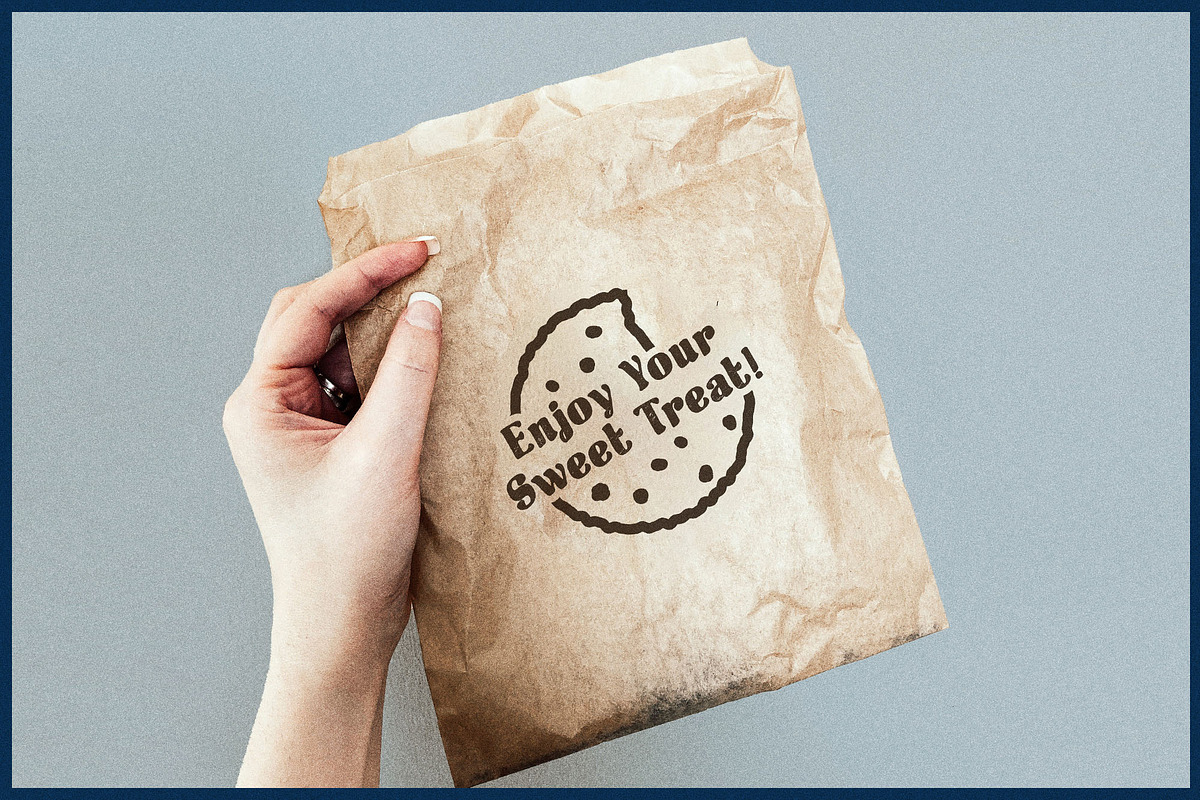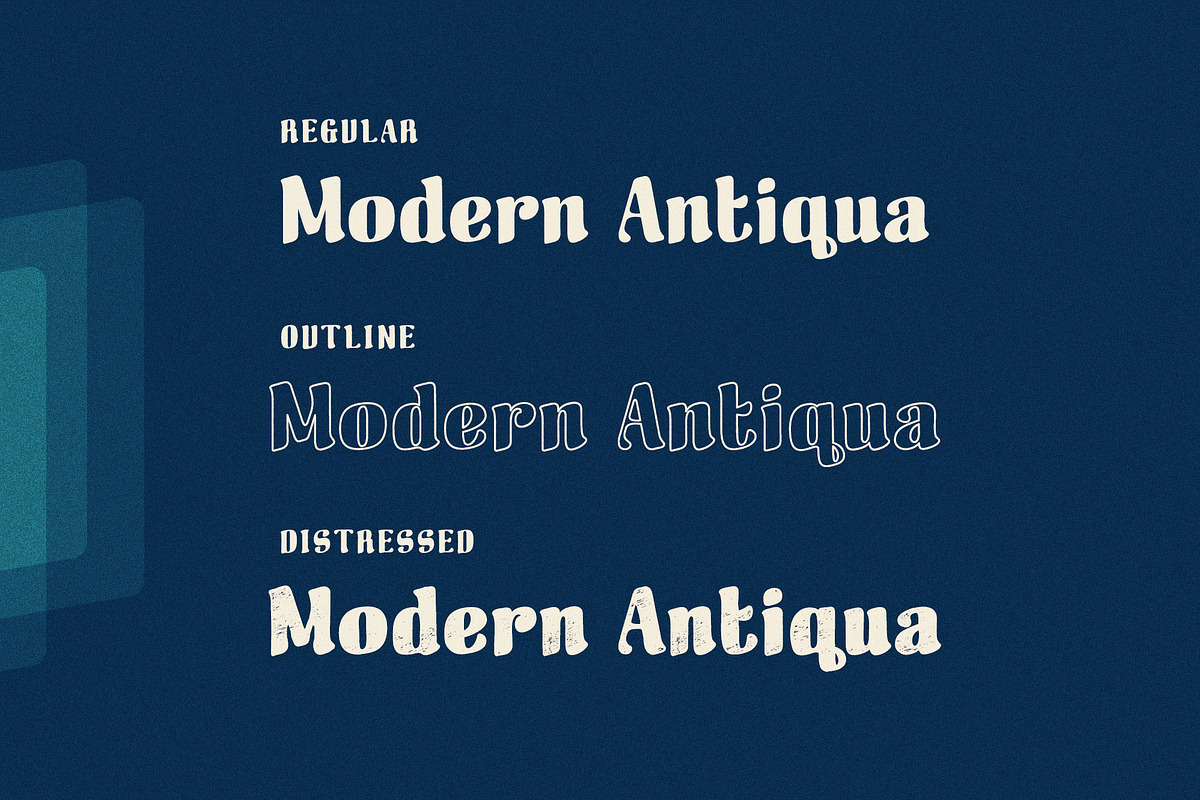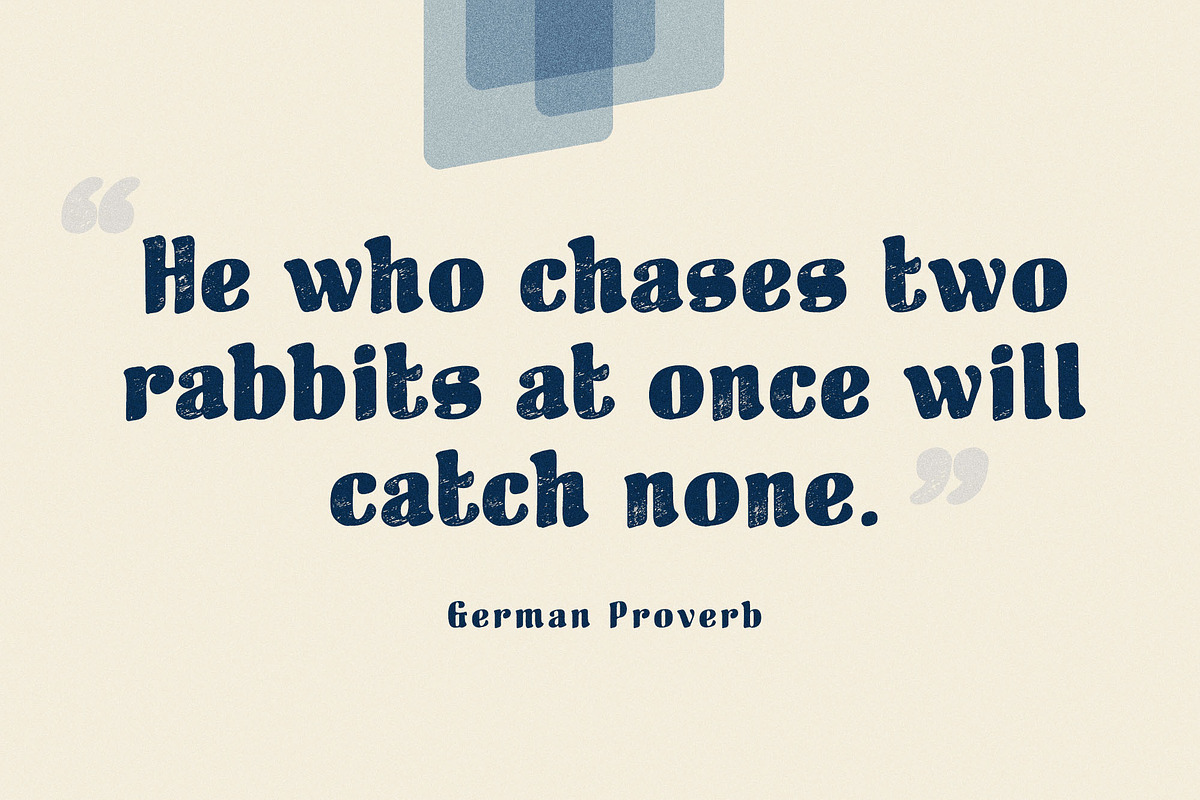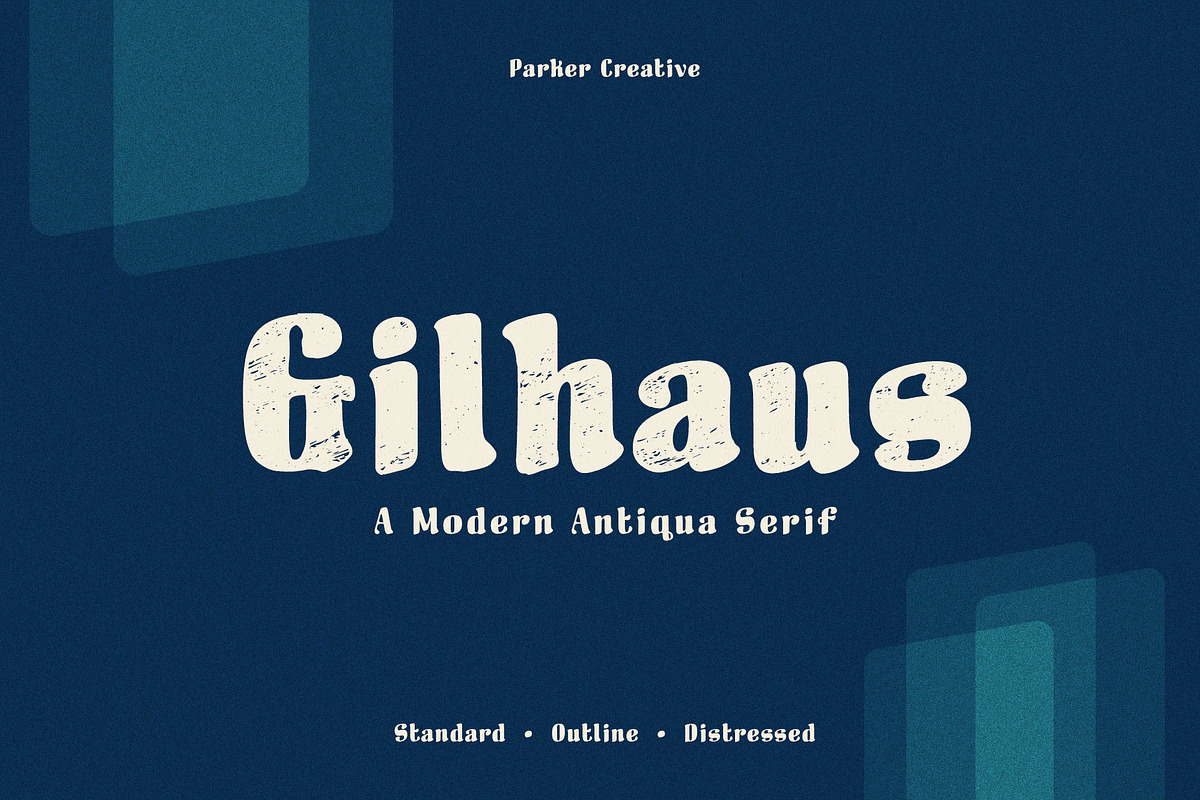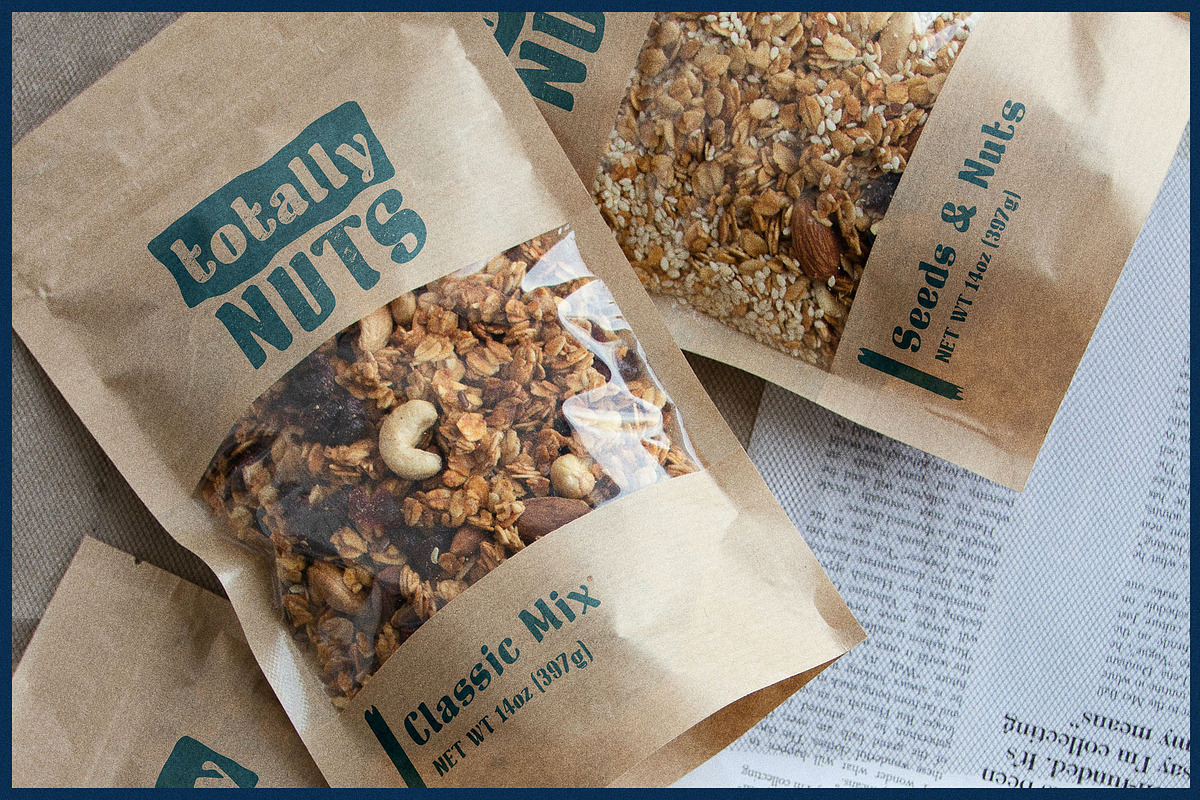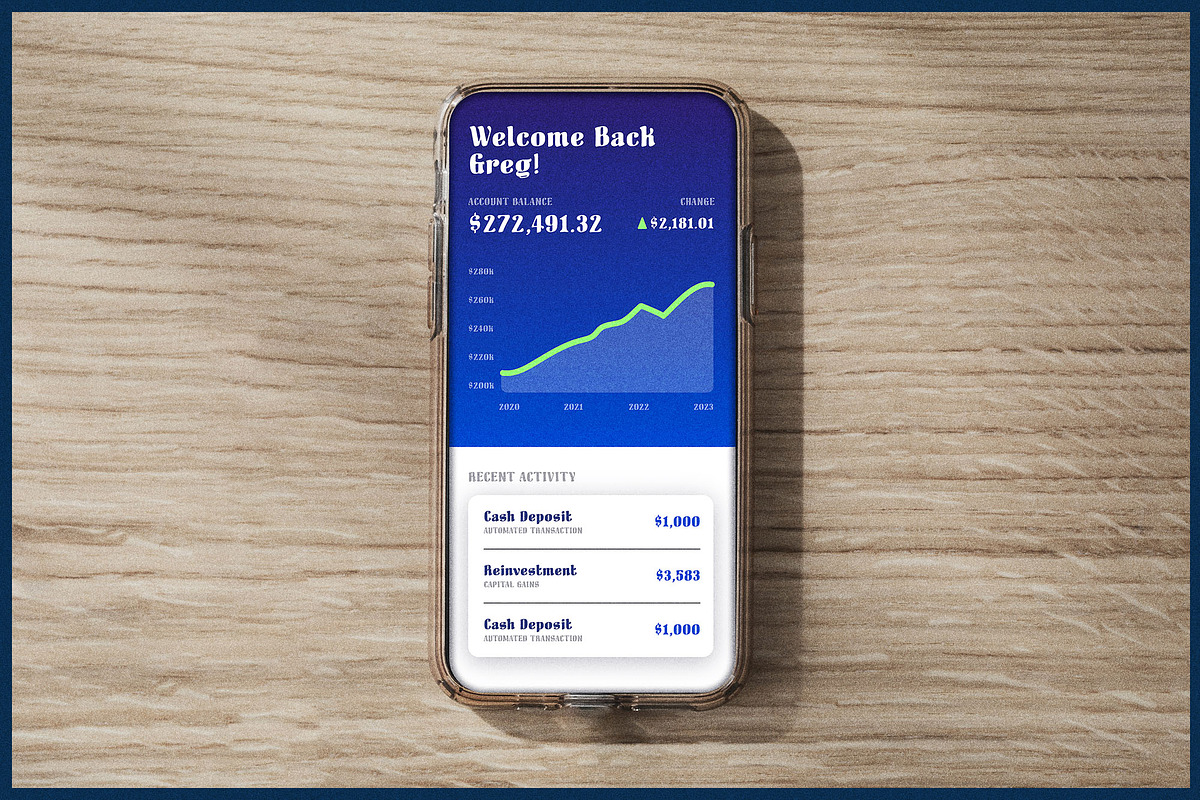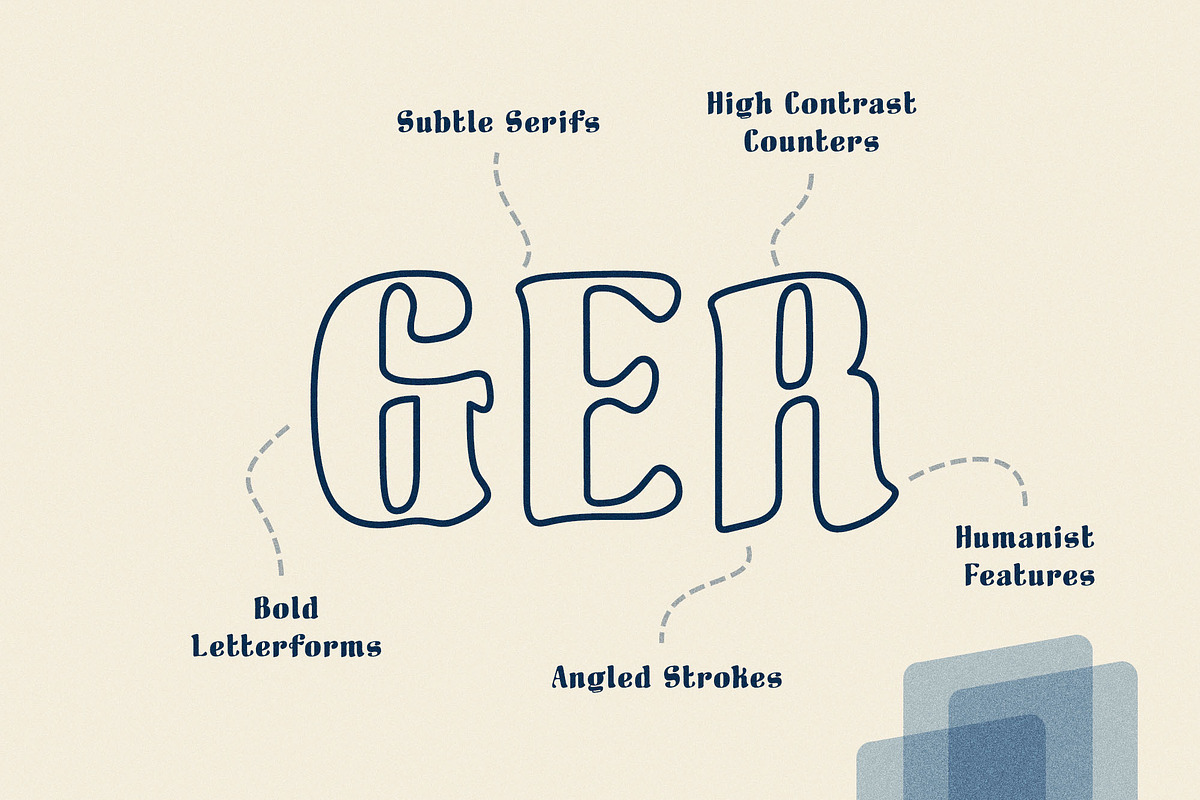
Gilhaus - A Modern Antiqua Serif
Inspired by the classic German Antiqua style, Gilhaus is a totally original modern serif rooted in iconic history and built for modern projects including branding, web and digital apps, large format printing, and more.
Gilhaus brings 16th Century German type design into the modern day with a complete design overhaul, including contemporary design balancing, spacing, and new age texturing treatments. While subtle serifs and soft edges bring in an element of warmth and approachability, Gilhaus is balanced out by the bold angular strokes and high contrast letterforms typically found in classic Antiqua typography.
Gilhaus also brings in subtle calligraphic elements to produce a more humanist aesthetic; giving each letterform more unique qualities and creating a natural flow.
Gilhaus comes with an extensive range of characters and symbols.